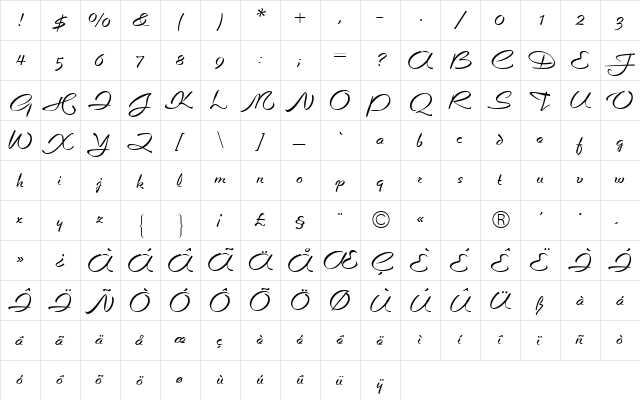
CapriceBQ Regular Font Preview
CapriceBQ Regular
Design Context for CapriceBQ Typeface
CapriceBQ is a composed and adaptable typeface that performs quietly and consistently across a wide range of design contexts.